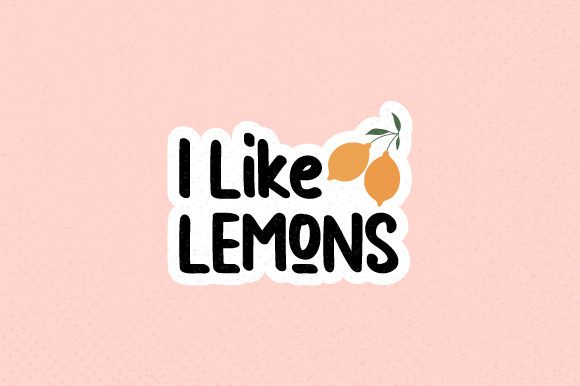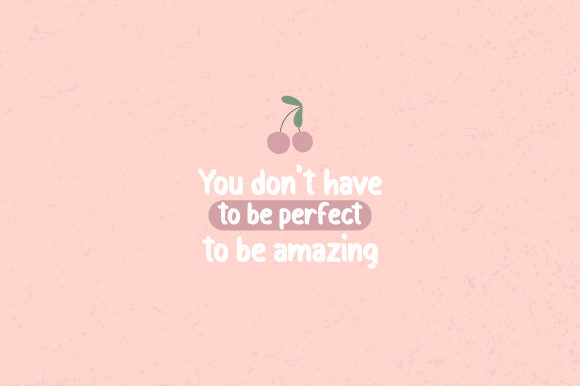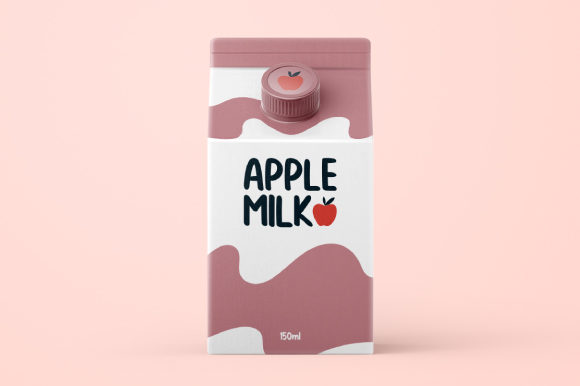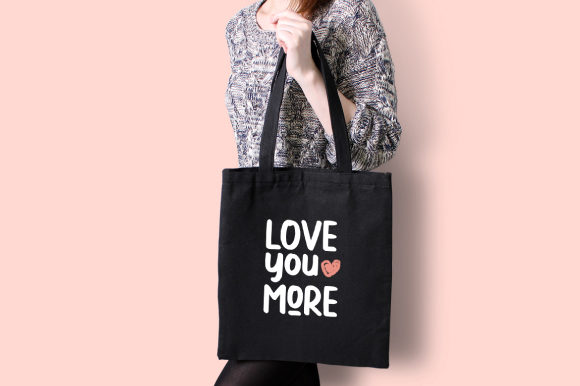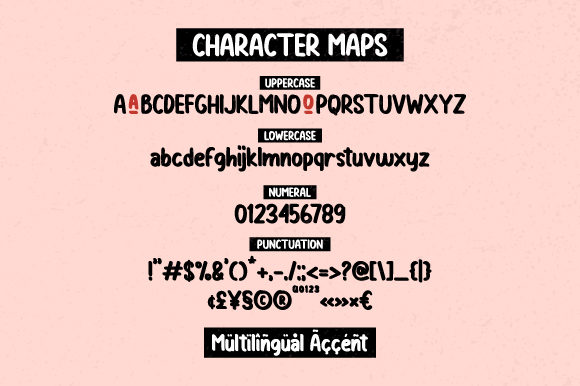
Introducing Dialog Anila Font: A Sweet and Friendly Handwritten Delight
Are you on the hunt for a font that adds a touch of warmth and personality to your designs? Look no further than Dialog Anila Font, a sweet and friendly handwritten font that’s perfect for a wide range of creative projects. With its natural and unique style, Dialog Anila is sure to capture the hearts of designers and crafters alike.
The Charm of Dialog Anila Font
Dialog Anila Font boasts a charming, handcrafted aesthetic that’s reminiscent of handwritten notes and letters. Its flowing lines and gentle curves evoke a sense of friendliness and approachability, making it an excellent choice for designs that require a personal touch. Whether you’re working on a branding project, a wedding invitation, or a social media graphic, Dialog Anila Font is sure to add a dash of warmth and personality to your work.
Endless Variations at Your Fingertips
One of the best things about Dialog Anila Font is its incredible versatility. With a wide range of variations to explore, you can use this font to create a multitude of different looks and styles. From bold and playful to soft and subtle, Dialog Anila Font can be tailored to suit any design brief. Whether you’re looking to create a statement piece or a more understated design, this font has got you covered.
So, what can you use Dialog Anila Font for? The possibilities are endless! Here are just a few ideas to get you started:
- Branding and Packaging: Use Dialog Anila Font to add a touch of personality to your brand’s logo, packaging, or marketing materials.
- Wedding and Event Design: Create beautiful wedding invitations, save-the-date cards, or event posters with Dialog Anila Font.
- Social Media Graphics: Add a personal touch to your social media graphics, such as Instagram posts or Facebook banners, with this charming font.
- Stationery and Paper Crafts: Use Dialog Anila Font to create lovely stationery sets, greeting cards, or paper crafts.
Why Choose Dialog Anila Font?
With so many fonts to choose from, what sets Dialog Anila Font apart? Here are just a few reasons why designers and crafters love this font:
- Unique and Handcrafted: Dialog Anila Font boasts a one-of-a-kind, handcrafted aesthetic that’s sure to make your designs stand out.
- Easy to Read: Despite its playful, handwritten style, Dialog Anila Font is incredibly legible, making it perfect for body text or longer designs.
- Highly Versatile: With a wide range of variations to explore, Dialog Anila Font can be used for a multitude of design applications.
Get Creative with Dialog Anila Font
Whether you’re a seasoned designer or a crafting enthusiast, Dialog Anila Font is sure to become a favorite in your font collection. Its unique blend of warmth, personality, and versatility makes it the perfect choice for a wide range of creative projects. So go ahead, get creative, and have fun with Dialog Anila Font!